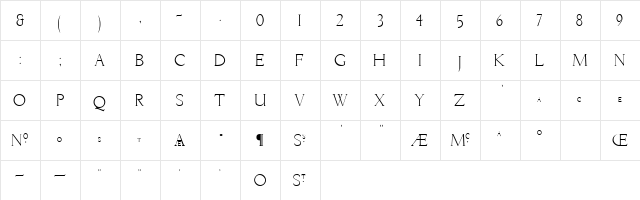
Livia Medium
Design Context for Livia Typeface
Livia takes a measured approach to typography — its balanced proportions and neutral character make it a reliable workhorse for both digital and print work.